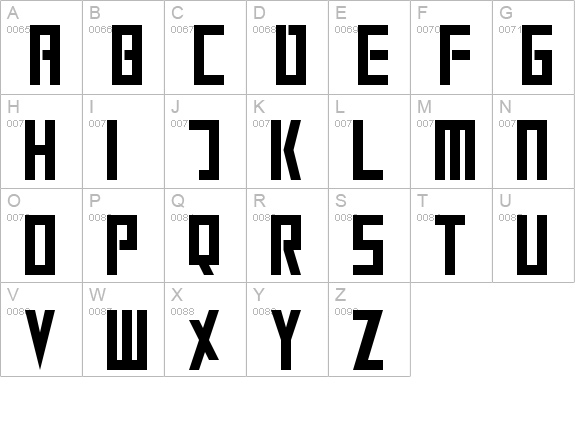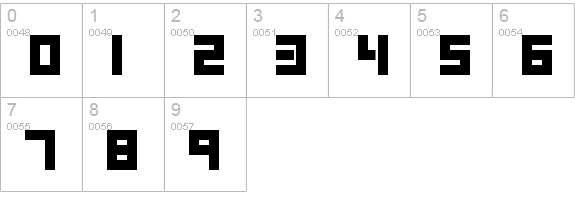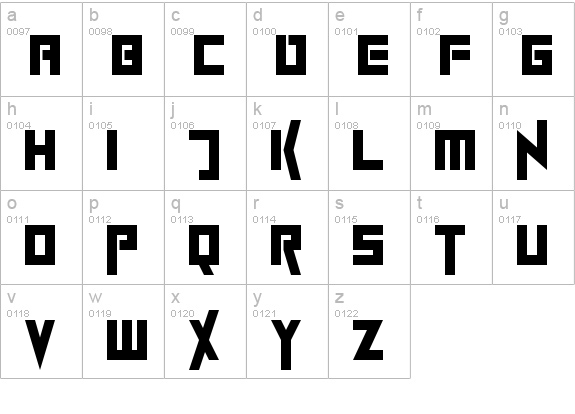
Extinction Event Font Details
Extinction Event is a free for personal use font in the Modern > Techno category, designed by Darrell Flood. It has been downloaded 579 times and is available for Windows, Mac and Linux.
Extinction Event font is a stunning display typeface that exudes power and sophistication. With its sharp edges and bold letterforms, this font is perfect for creating impactful headlines, posters, and branding materials. The unique design of Extinction Event font gives your projects a modern and edgy look that will surely make them stand out.